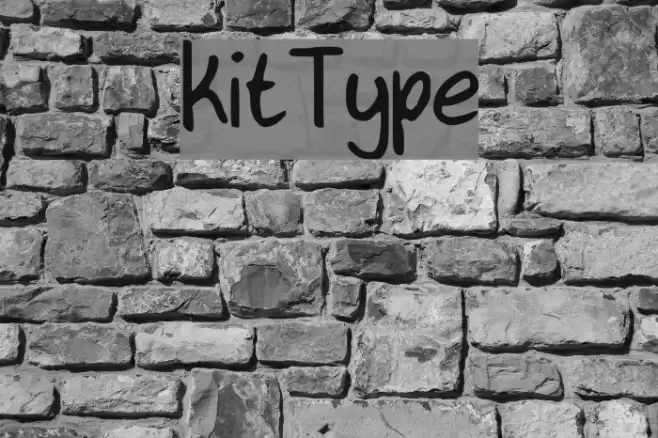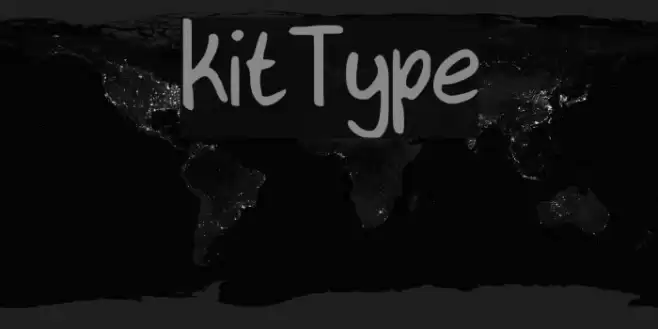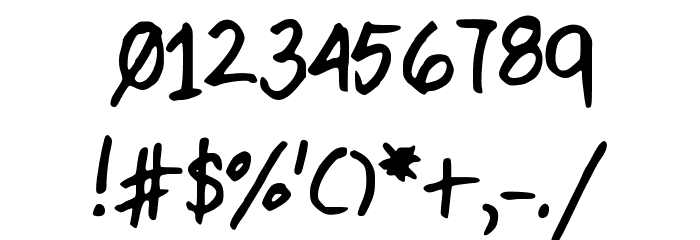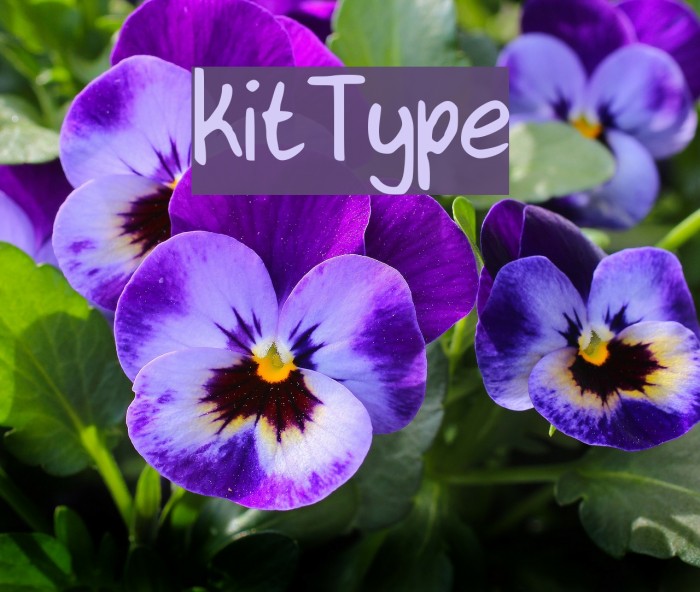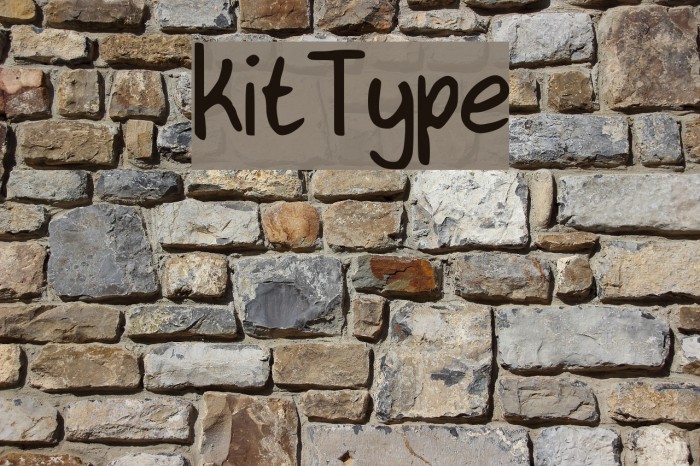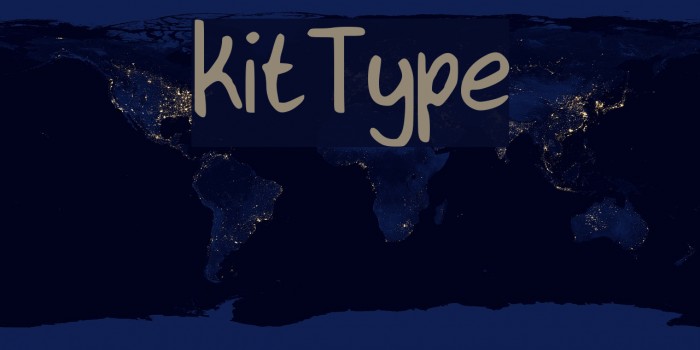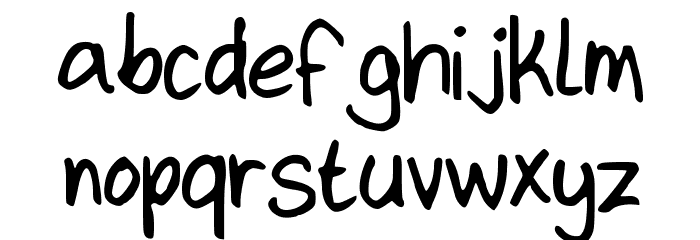
kitType Font
kitType Description
This font exudes a playful and casual handwritten style, characterized by its organic and slightly irregular letterforms. The strokes are bold and rounded, giving it a friendly and approachable appearance. The uppercase and lowercase letters maintain a consistent flow, while the numerals and special characters complement the overall style with their quirky and informal design. The font's distinct personality makes it ideal for projects that require a touch of creativity and warmth.
A playful, handwritten font with bold, rounded strokes from Uncategorized fonts.
- Proposed Projects: Ideal for greeting cards, children's books, casual branding, and social media graphics.
- Overall Style: Casual, Playful
- Use Case: Headlines, Informal text, Creative projects